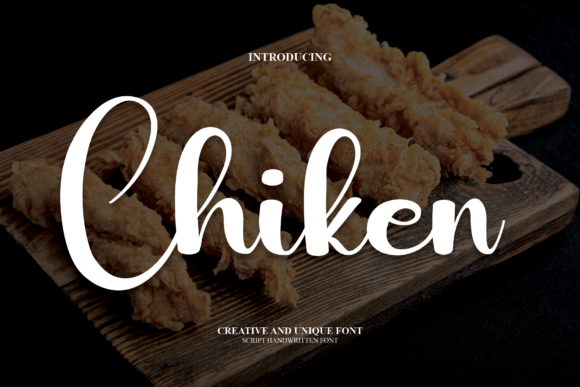
About Chiken Font
“Chiken”: A Modern Handwritten Script for Natural and Stylish Designs
Introducing “Chiken,” a modern handwritten script font designed to bring a natural, stylish, and personalized touch to your extraordinary projects. With its versatile style, this font looks lovely on a variety of designs, making it perfect for wedding invitations, thank you cards, quotes, greeting cards, logos, business cards, and any other project that requires a customized and handwritten feel.
The standout features of “Chiken” lie in its natural and stylish script design. The font captures a sense of authenticity and elegance, making it suitable for a wide range of creative applications. Whether you’re expressing heartfelt messages on wedding invitations or adding a customized touch to business cards, “Chiken” becomes the essential element that enhances your designs.
Imagine using “Chiken” for wedding invitations where the font’s natural and stylish script creates a warm and personalized atmosphere. In thank you cards and quotes, the font adds a touch of sincerity and uniqueness, making your messages stand out. Its versatility shines through in logos and business cards, where the font contributes to the overall branding with a handwritten and customized flair.
“Chiken” is not just a font; it’s a design tool that brings a handwritten feel to your projects. Its adaptability ensures that it complements various design contexts, allowing you to infuse your creativity with a touch of natural elegance.
In conclusion, “Chiken” is designed to be your go-to font for natural and stylish handwritten projects. Whether you’re working on wedding invitations, thank you cards, quotes, greeting cards, logos, business cards, or any other context, let “Chiken” be the font that adds a personal and customized touch to your designs. Explore its possibilities, embrace its natural charm, and watch as it transforms your projects into beautifully authentic and stylish creations.